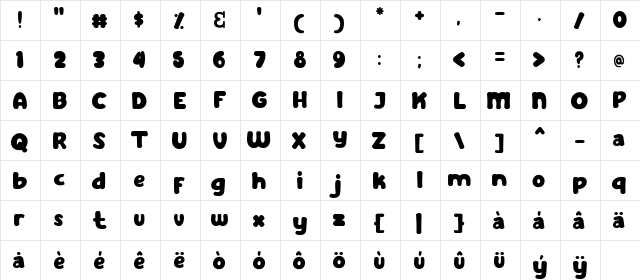
Chiki Regular
Design Context for Chiki Typeface
Chiki offers clean, dependable letterforms without strong stylistic allegiance, making it a practical choice for designers who need flexibility.
Pro Tip: Use Chiki in both headline and body roles to test its range before committing to a single application.